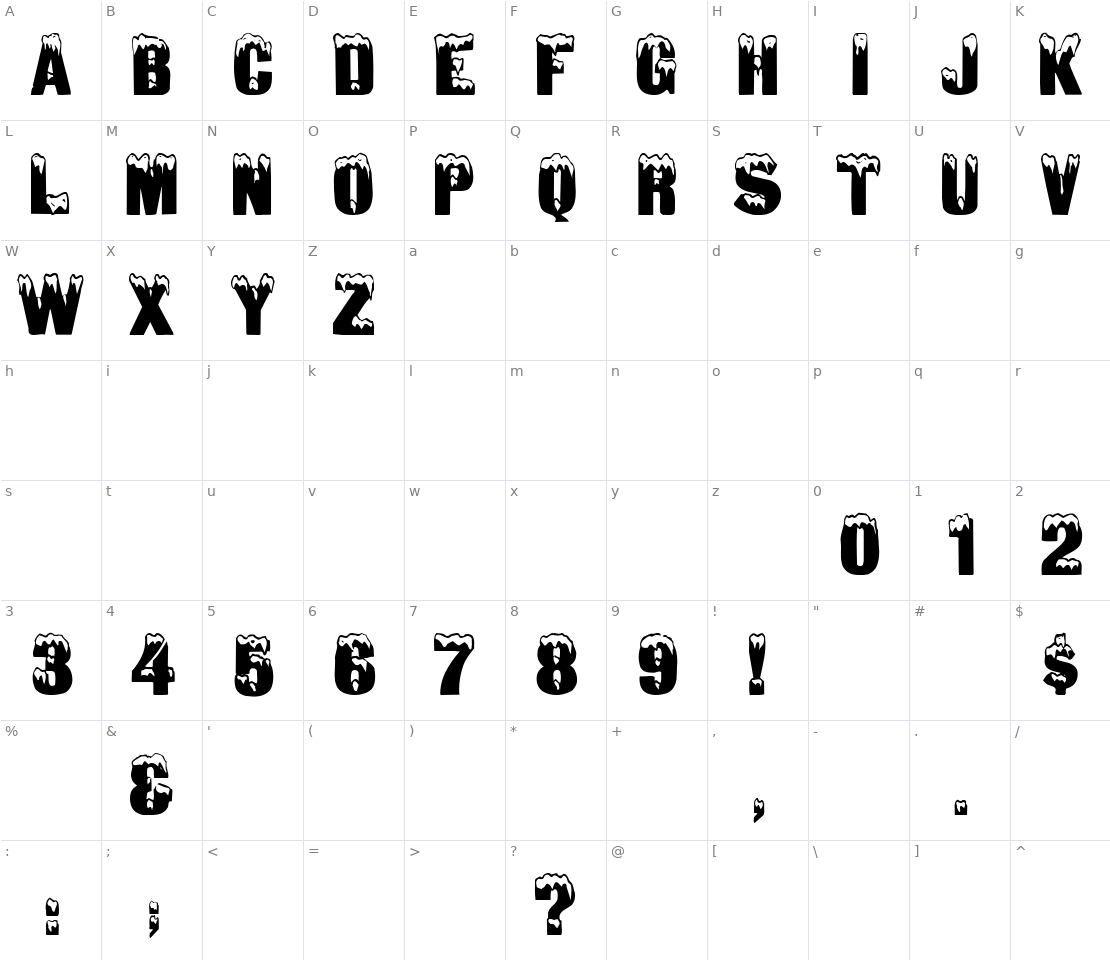
Igloo Laser
Igloo Laser is a bold, decorative display face with letterforms that look frozen solid, all icy edges and crystalline details that lean hard into a winter theme. The cold aesthetic is unmistakable, making it a natural pick for holiday packaging, seasonal event posters, or anything that needs to feel like it was carved out of a glacier. Best kept to headlines and short text where the novelty can land without wearing thin.